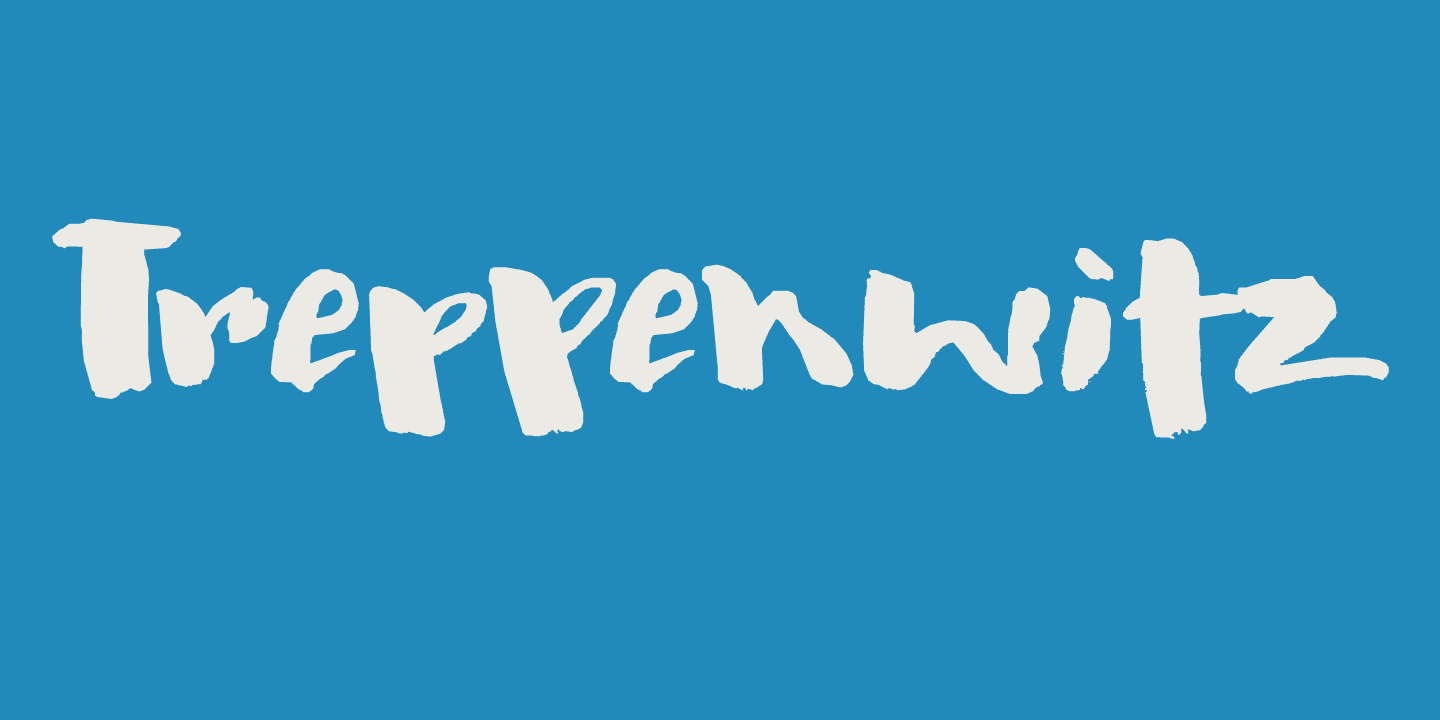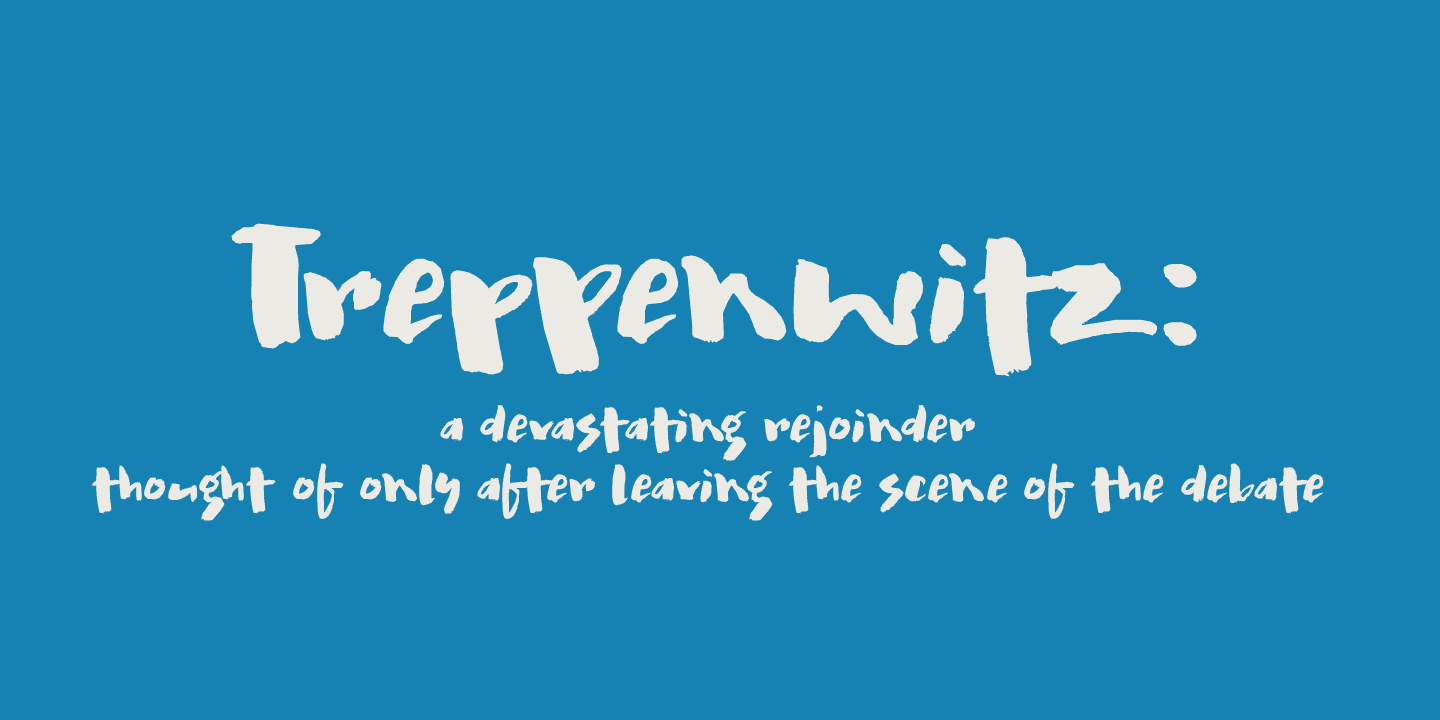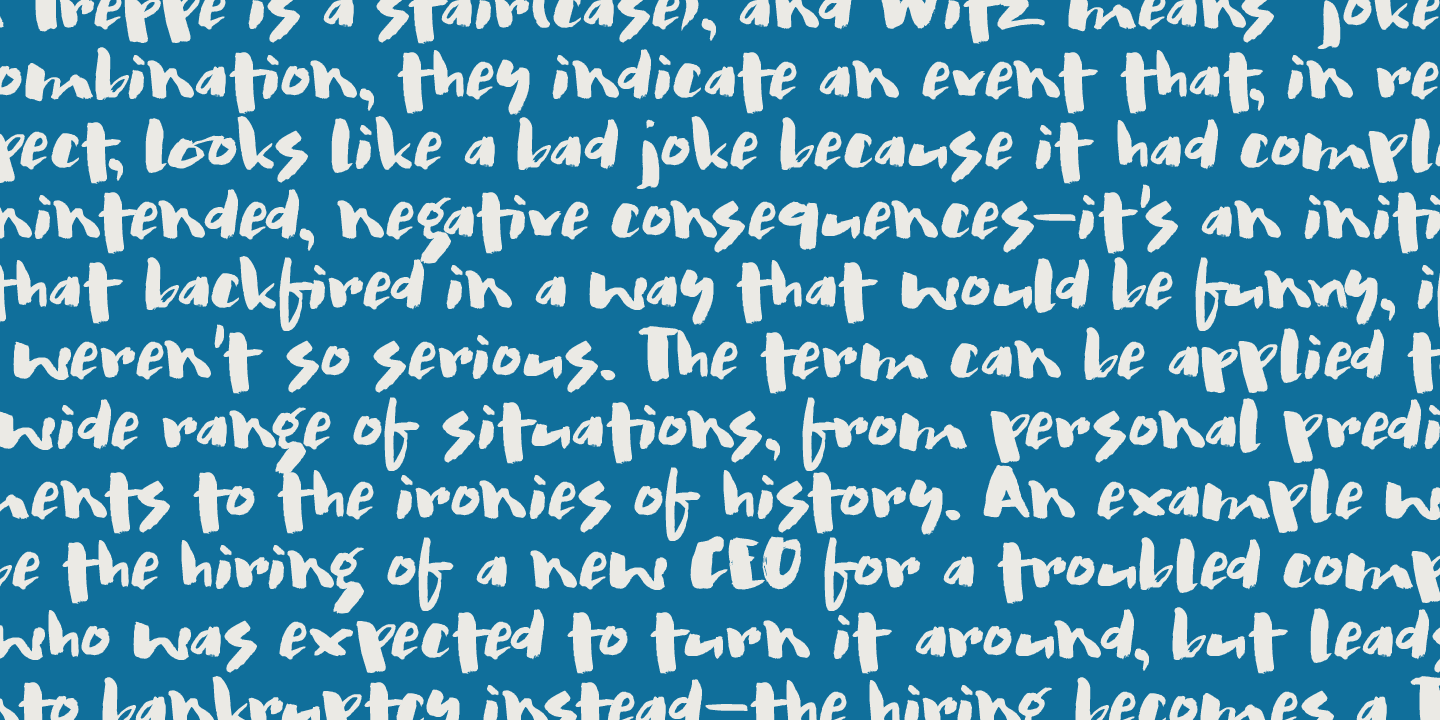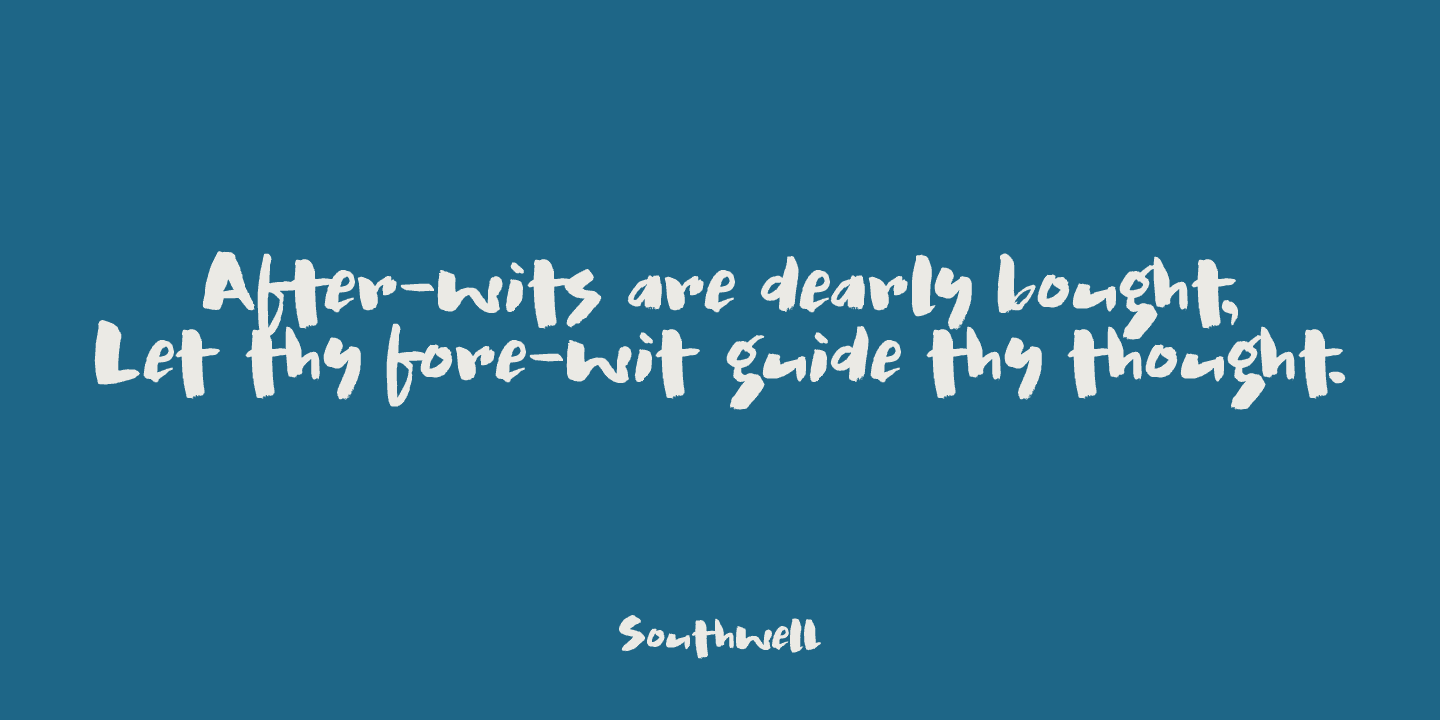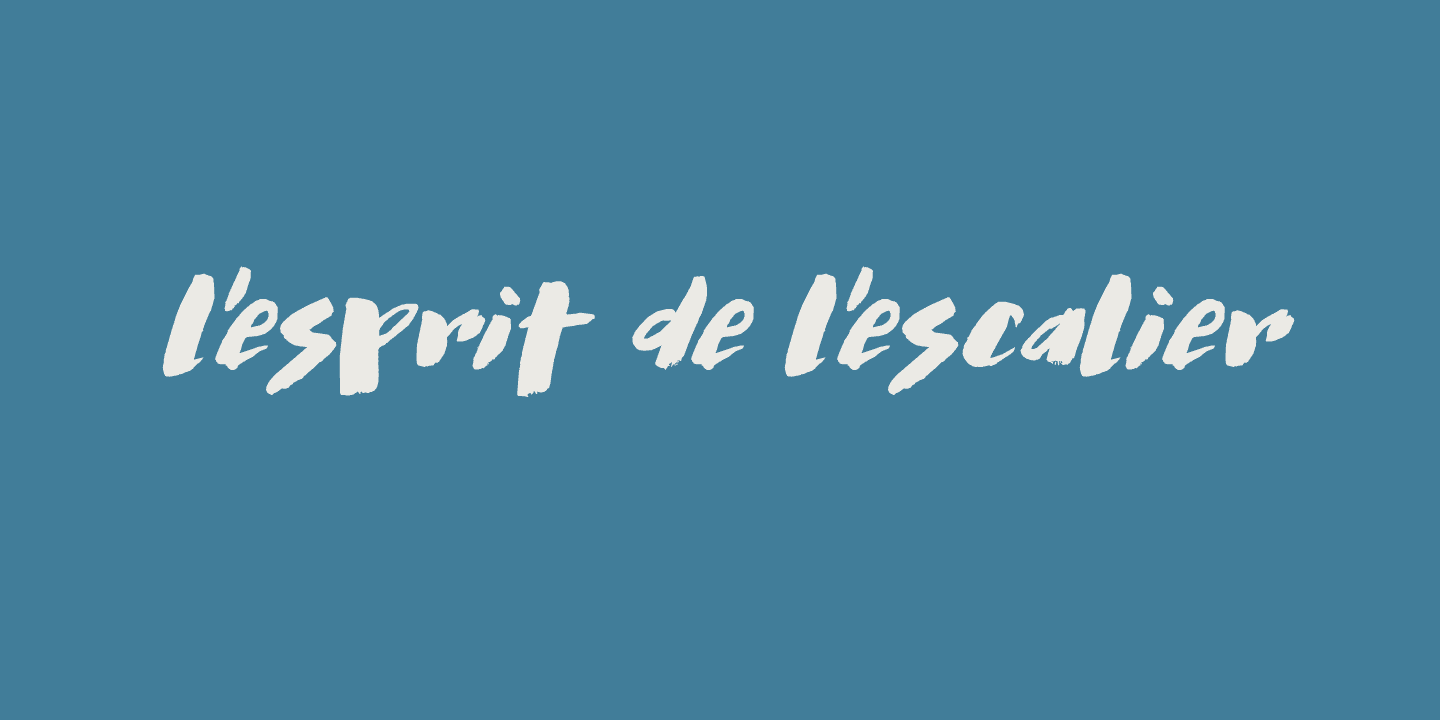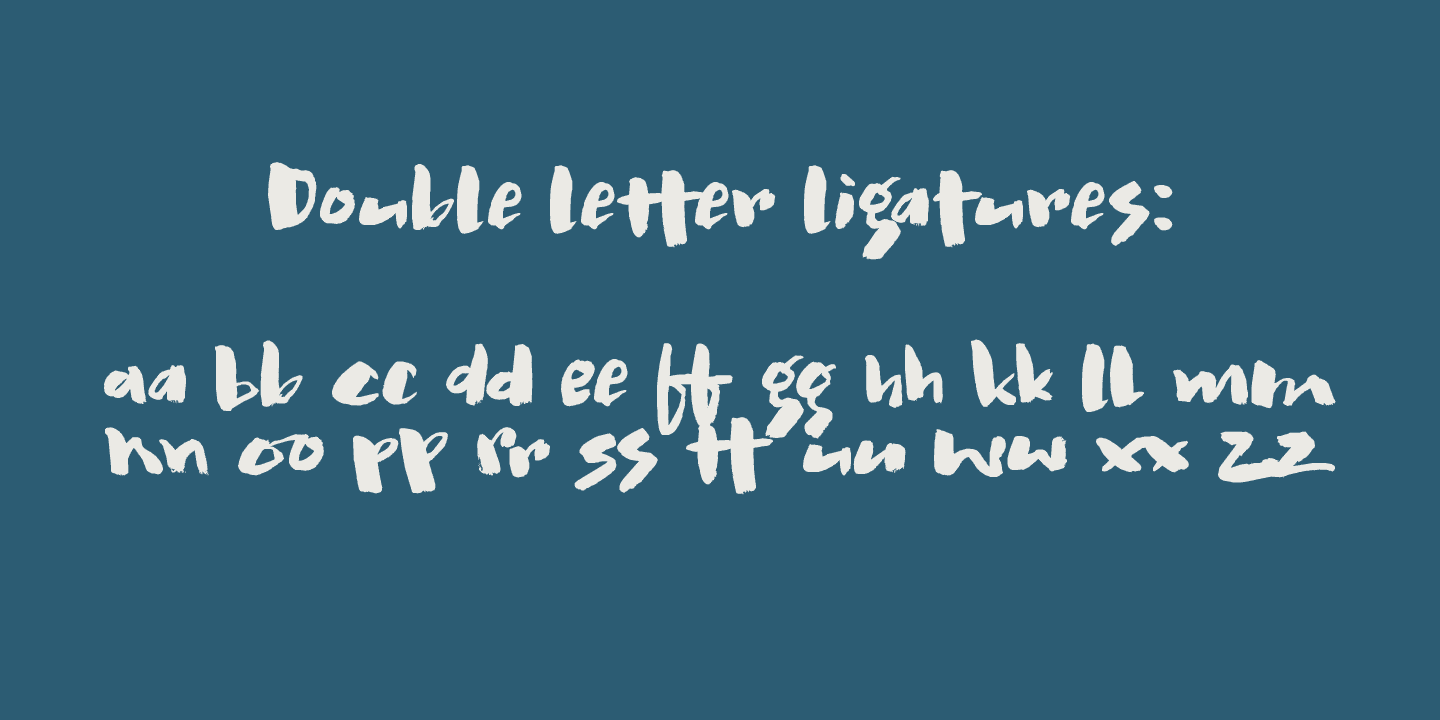
Treppenwitz (literally: ‘Staircase Wit’) is a German word describing a conversational remark that only occurs to someone after the opportunity to make it has passed. I love words like this: they can sum up a whole sentence or a complex train of thought. Treppenwitz font is hand brushed. It’s a little uneven, a little shaky, but will look good on product packaging and book covers. Comes with loads of diacritics and double letter ligatures as well.